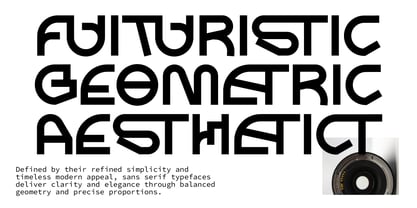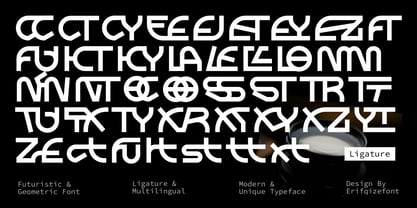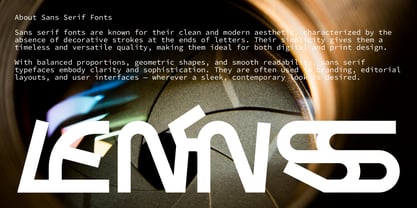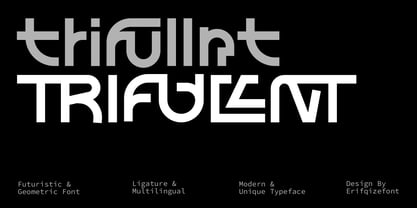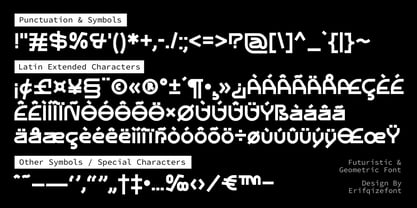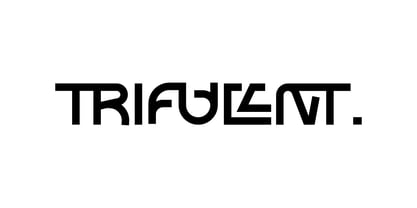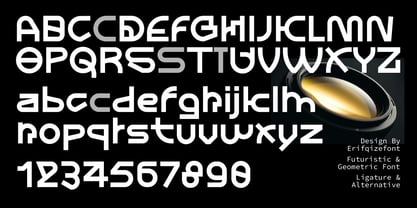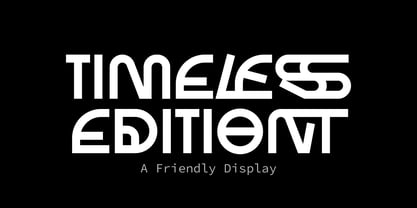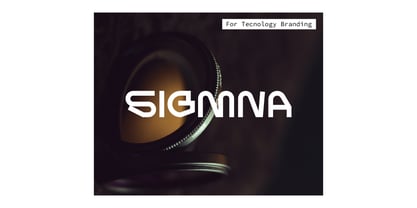
Trifullnt
by Erifqizefont
The Trifullnt Font Family was designed by Eka Rifqi Setiawan and published by Erifqizefont. Trifullnt contains 1 styles.
TRIFULLNT is a futuristic geometric display font crafted for the next generation of digital and technology design. With its bold structure, clean symmetry, and precise letterforms, it embodies the spirit of innovation, clarity, and modern aesthetics. Each glyph has been carefully shaped to deliver a balance between futuristic expression and functional readability. This typeface includes 40 exclusive ligatures and alternates, giving designers the freedom to experiment and create unique visual identities. It also supports multilingual characters, ensuring flexibility for global design projects. TRIFULLNT is perfect for tech branding, UI design, sci-fi visuals, and startup identities that need a strong and visionary typographic statement. Its geometric precision and digital energy make it more than just a font—it’s a reflection of the future in design form.
Introducing Erifqizefont, a Foundry led by Eka Rifqi Setiawan. Originating from Eka's experience as an Icon Designer, Erifqizefont specializes in bold, symmetrical Display Fonts with futuristic elements, occasionally exploring retro and whimsical styles. Based in Indonesia, Erifqizefont integrates the nation's cultural heritage into its designs. As a sole proprietor, Eka focuses on crafting superior, unique fonts, setting Erifqizefont apart in the industry.